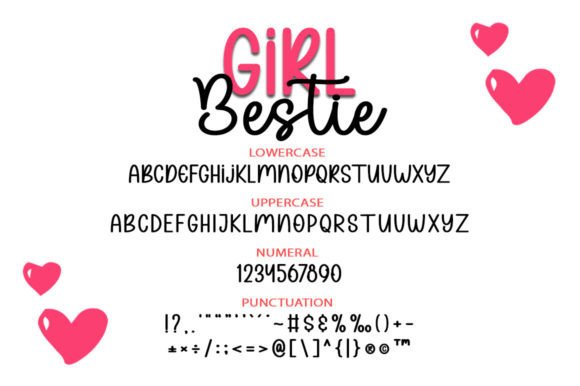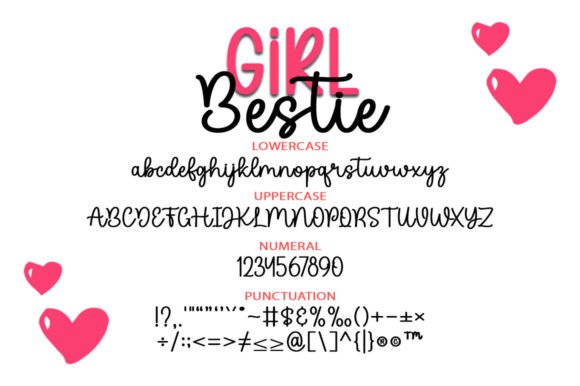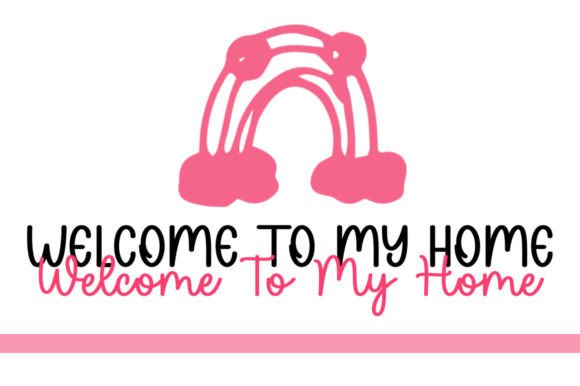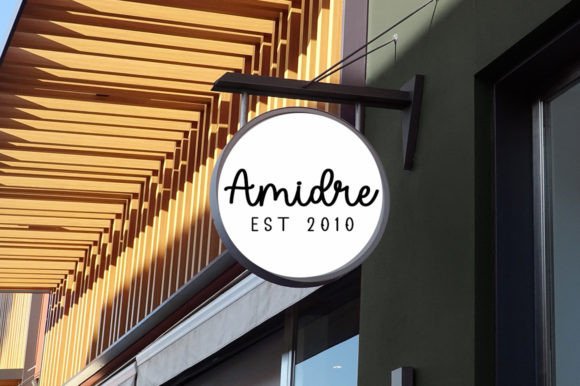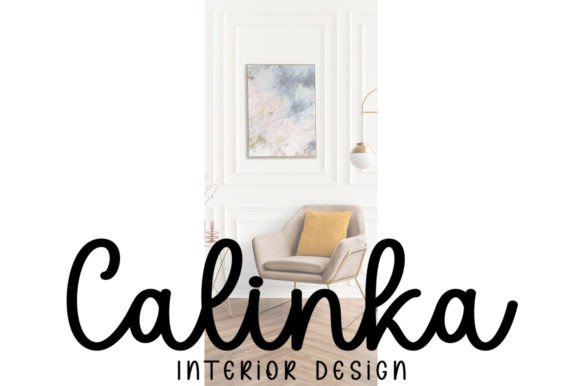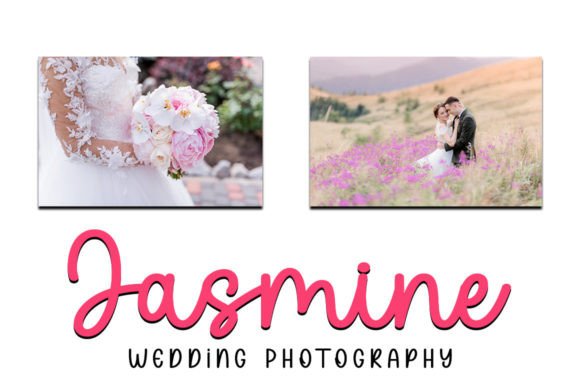
Introducing Girl Bestie Font: The Ultimate Duo for Romantic Creations
Are you a designer, crafter, or DIY enthusiast looking for the perfect font to add a touch of romance to your projects? Look no further than the Girl Bestie Font, a stylish and delicate duo font that combines a sans serif and script font to create a unique and captivating visual experience.
What is Girl Bestie Font?
Girl Bestie Font is a carefully crafted duo font that consists of two complementary fonts: a sans serif font and a beautiful script font. This versatile font combination is suitable for a wide spectrum of applications, from greeting cards and invitations to headlines and social media graphics.
Key Features of Girl Bestie Font
- Stylish and Delicate: Girl Bestie Font boasts a stylish and delicate design that exudes romance and sophistication.
- Duo Font: The font comes with two complementary fonts: a sans serif font and a script font, allowing you to mix and match to create visually appealing combinations.
- Versatile: Girl Bestie Font is perfect for a wide range of projects, including greeting cards, invitations, headlines, social media graphics, and more.
Perfect for Romantic Creations
Girl Bestie Font is designed to add a romantic touch to your creations. Whether you’re designing a wedding invitation, a Valentine’s Day card, or a social media graphic, this font duo is sure to impress. The sans serif font provides a clean and modern base, while the script font adds a touch of elegance and sophistication.
Why Choose Girl Bestie Font?
With so many fonts available, why choose Girl Bestie Font? Here are just a few reasons:
- Unique and Eye-Catching: Girl Bestie Font is a unique and eye-catching duo font that will set your creations apart from the rest.
- High-Quality Design: The font is designed with high-quality craftsmanship, ensuring that it looks great in any size or application.
- Time-Saving: With Girl Bestie Font, you can save time and effort by using a pre-designed font that is ready to use.
Tips for Using Girl Bestie Font
Here are a few tips for using Girl Bestie Font in your designs:
- Mix and Match: Experiment with different combinations of the sans serif and script fonts to create visually appealing effects.
- Play with Size and Color: Don’t be afraid to play with size and color to add depth and interest to your designs.
- Use for Headlines and Titles: Girl Bestie Font is perfect for headlines and titles, adding a touch of romance and sophistication to your creations.
Girl Bestie Font is a stylish and delicate duo font that is perfect for designers, crafters, and DIY enthusiasts looking to add a romantic touch to their creations. With its versatile design, high-quality craftsmanship, and ease of use, this font duo is sure to become a favorite in your design arsenal. So why wait? Download Girl Bestie Font today and start creating beautiful, romantic designs that will leave a lasting impression!